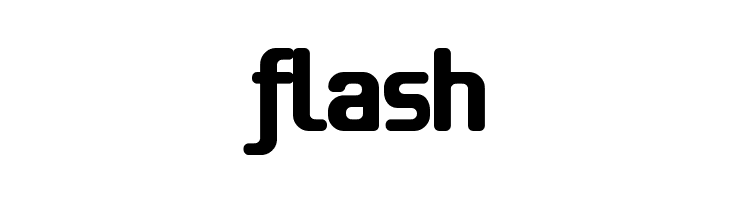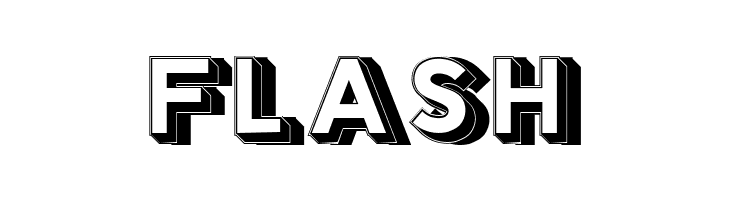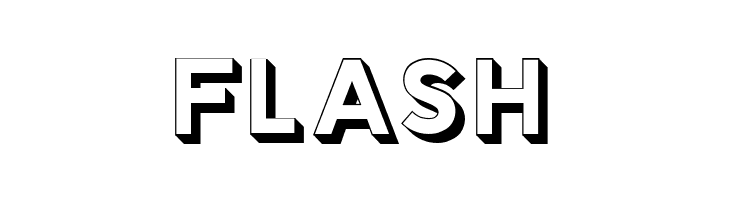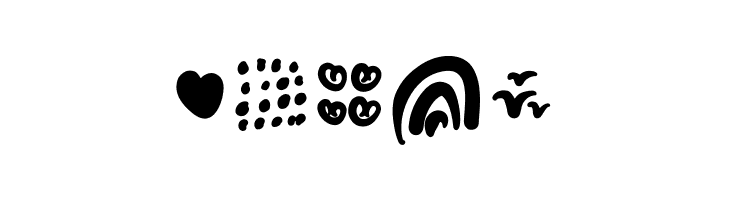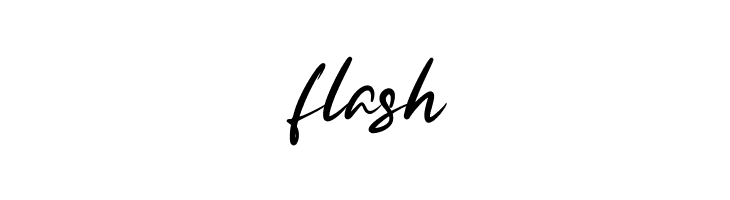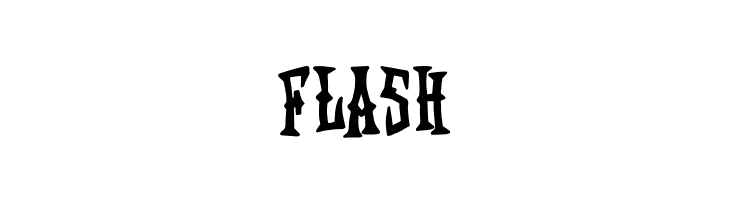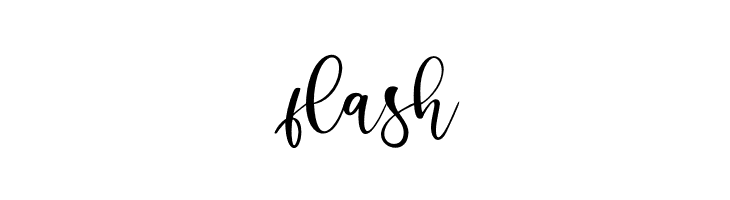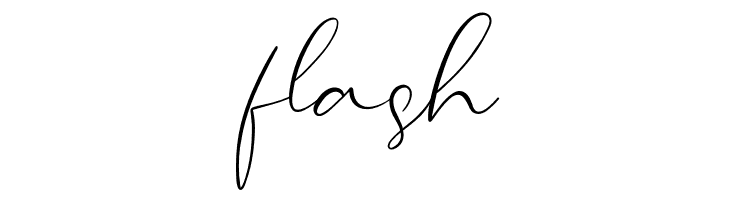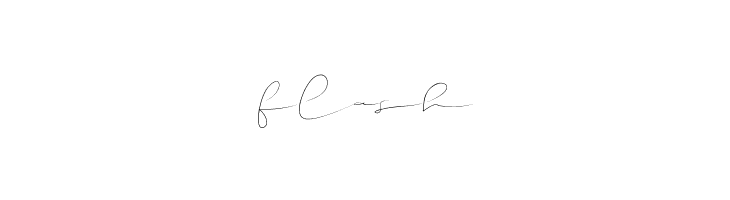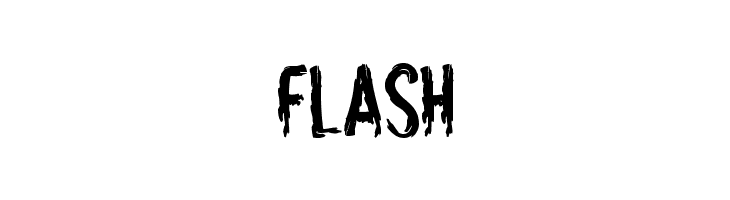
A bold, 3D geometric font with a striking shadow effect.
A bold, geometric font with a 3D shadow effect, perfect for impactful designs.
A bold, hand-drawn font with a playful and energetic style.
A bold, hand-drawn font with a textured, playful appearance.
A bold, edgy font with sharp, angular lines and a gothic style.
A sophisticated, elegant handwritten font with fluid, cursive strokes.
A graceful and elegant handwritten font with fluid, flowing letterforms.
A bold, decorative font with intricate patterns for eye-catching designs.
A spooky, distressed font with jagged, dripping characters.
A playful, bold, and handwritten-style font with rounded edges.
A bold, brushstroke-style font with a dynamic and textured appearance.
A bold, serif-inspired font perfect for impactful headlines.
A bold, rounded font with thick outlines and a playful, modern style.
A bold, distressed font with irregular, jagged edges and a chaotic style.
A playful, hand-drawn font with bold, cartoonish outlines and a whimsical style.
A modern, geometric font with a clean, structured design.
A bold, hand-drawn font with an expressive and dynamic style.
A playful, handwritten script font with flowing, interconnected strokes.
A bold, expressive handwritten font with a brush lettering style.
A lively and expressive handwritten font with flowing cursive letterforms.
A playful and whimsical set of hand-drawn symbols and icons.
A bold serif font with strong vertical lines and elegant curves.
A bold, italic serif font with a dynamic and elegant style.
An elegant italic serif font with a classic yet modern appeal.
A classic serif font with elegant, elongated strokes and refined appearance.
A classic, elegant serif font with vintage charm and refined details.
A bold, cursive font with interconnected letters and a dynamic, handwritten style.
A bold, rounded font with smooth curves and uniform strokes.
A bold, gothic-style font with sharp edges and tight spacing.
An abstract, symbolic font with a blend of sharp angles and smooth curves.
An ancient script-inspired font with bold, angular, and geometric characters.
A playful, hand-drawn font with a whimsical and artistic style.
A graceful and elegant script font with flowing, interconnected characters.